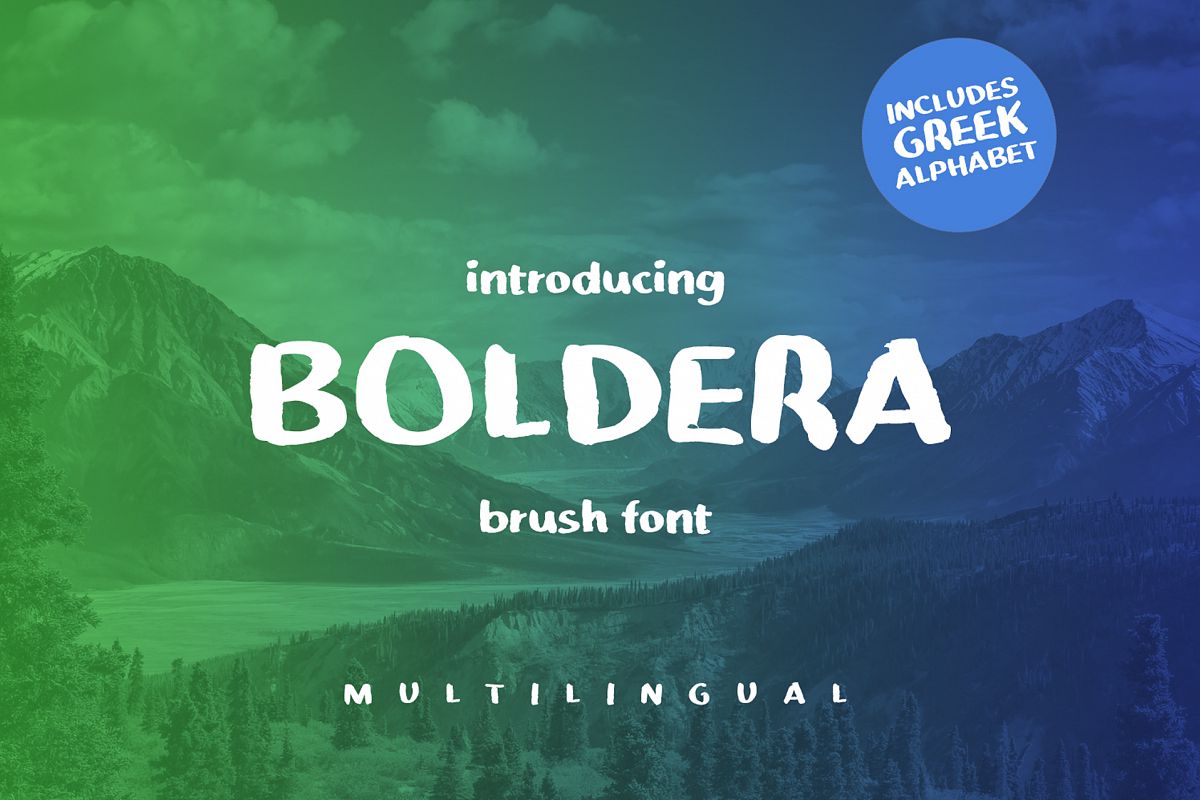
Boldera brush font
GBBoldera
Boldera brush font
ntroducing Boldera, a handmade brush font, designed for creating authentic typographic designs, including product designs, logo design & branding, music covers, social media campaigns and many more.
Supports international languages.
Dedicated uppercase and lowercase Greek alphabet included in the pack.